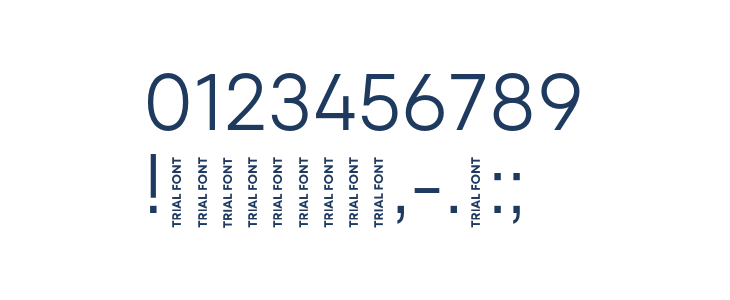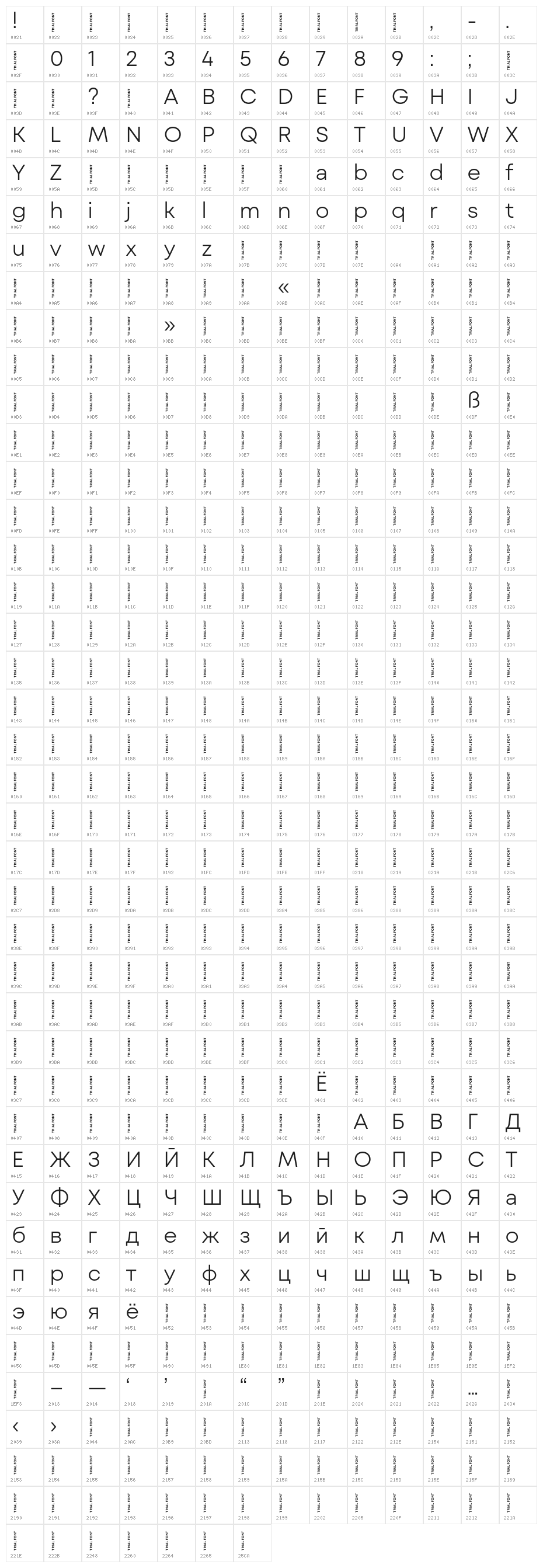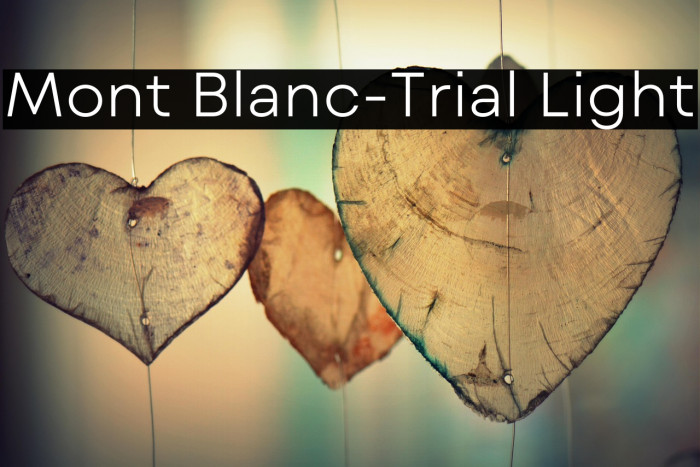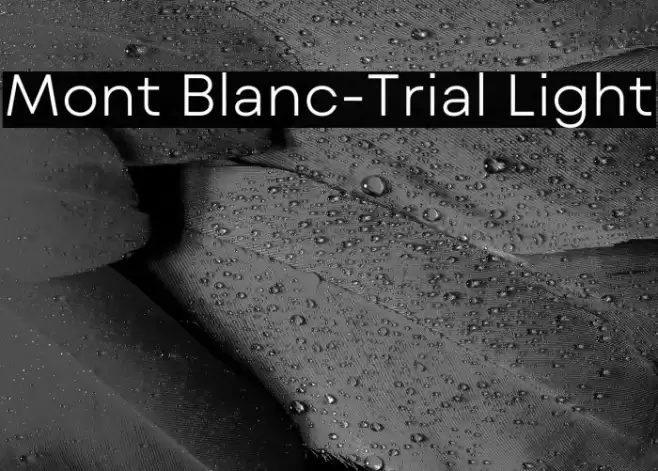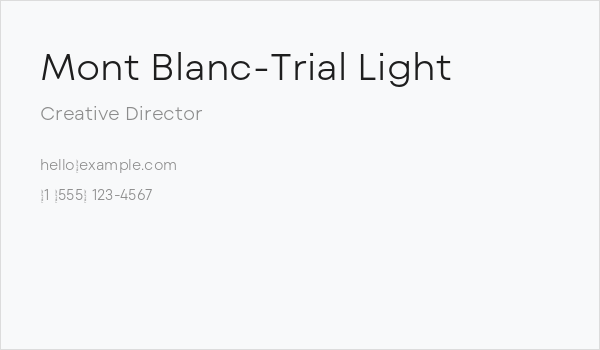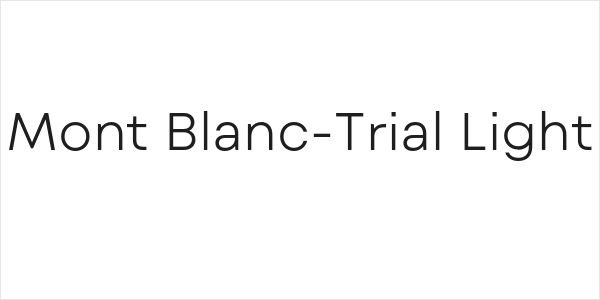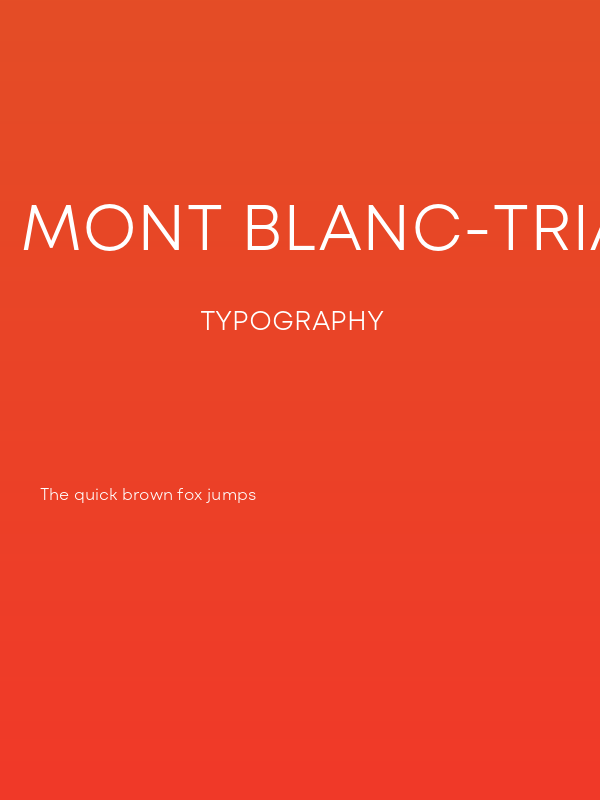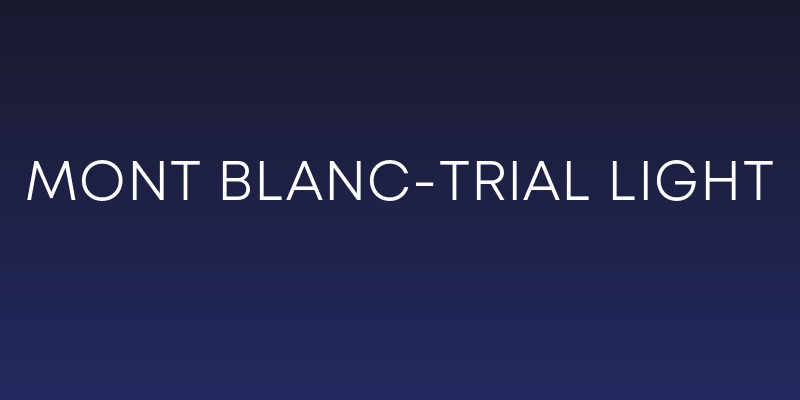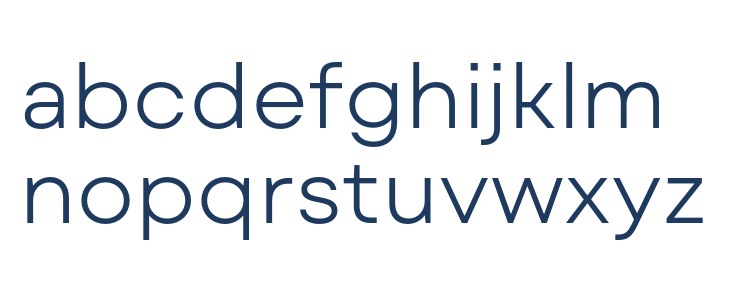
Mont Blanc-Trial Light Font
Mont Blanc-Trial Light Description
This font features a clean and modern sans-serif design, characterized by its simplicity and readability. The letters are evenly spaced with a consistent stroke width, giving it a balanced and harmonious appearance. The uppercase and lowercase letters maintain a uniform height, contributing to its sleek and contemporary look. The numerals are clear and distinct, ensuring easy readability. Special characters are designed with the same minimalist approach, making this font versatile for various applications.
| Proposed Projects | Ideal for branding, web design, corporate materials, and editorial layouts due to its clarity and modern aesthetic. |